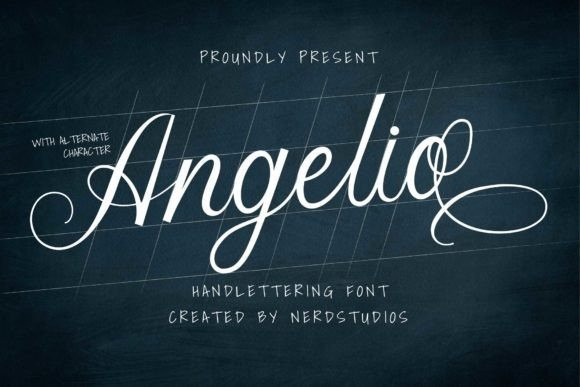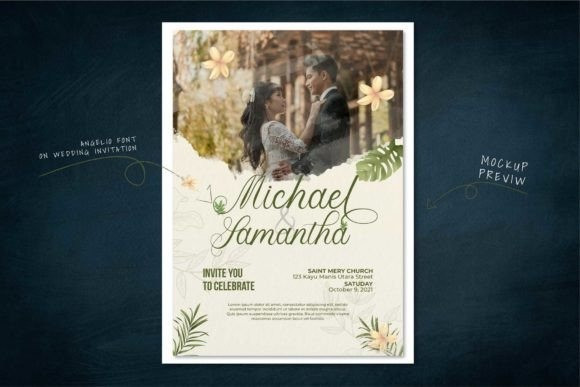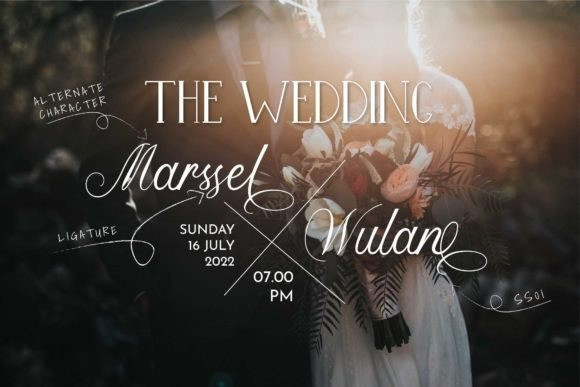
Angelio Font
Angelio is a dazzling script font. This font is neatly crafted and highly detailed. Whatever the topic, this font will be a wonderful asset to your font library, as it has the potential to enhance any creation.